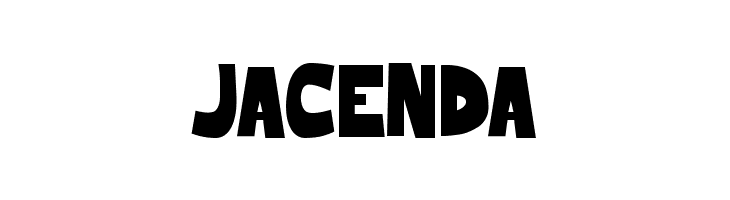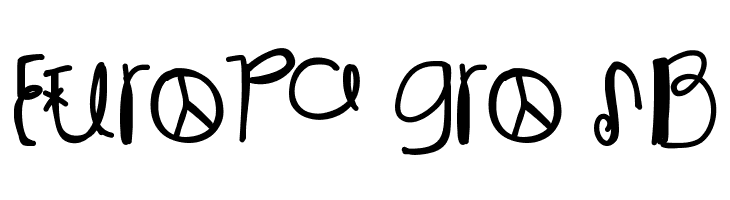
A bold, playful font with thick, rounded strokes and a whimsical touch.
A bold, distressed font with a grunge texture, perfect for rugged and edgy designs.
A whimsical, decorative font with playful curls and intricate details.
A whimsical and decorative font with intricate loops and curls.
A bold, textured brush font with a dynamic and energetic appearance.
A playful, bold font with whimsical, hand-drawn characteristics.
A bold, distressed font with a vintage, textured appearance.